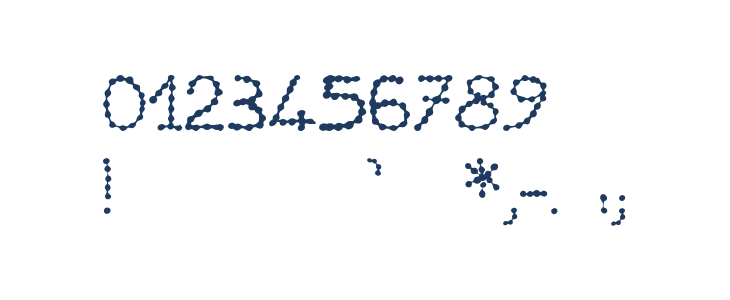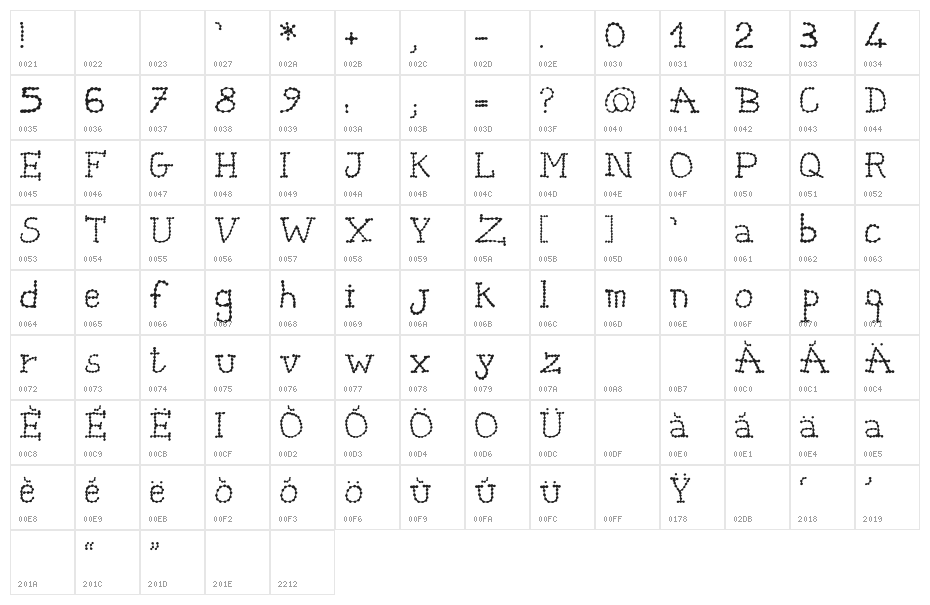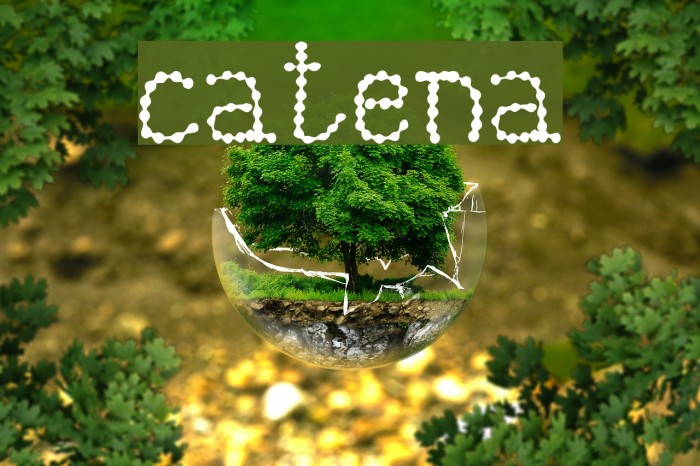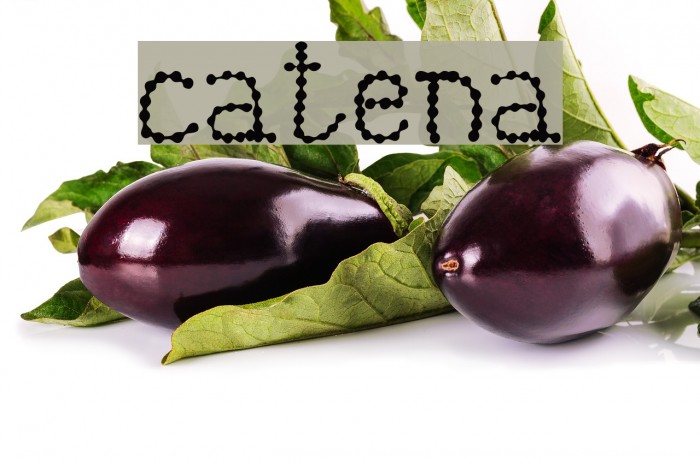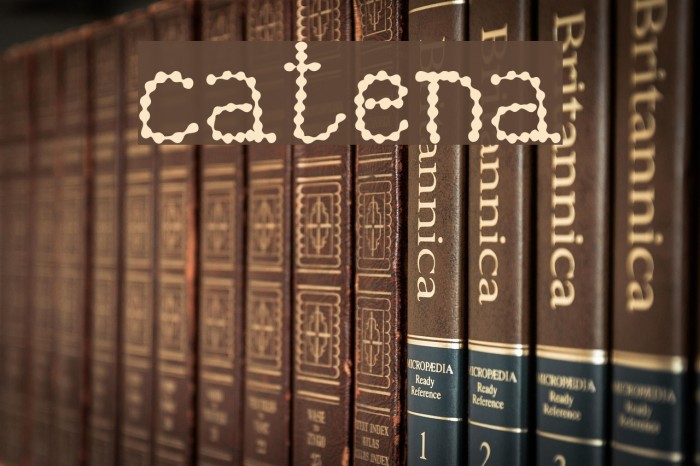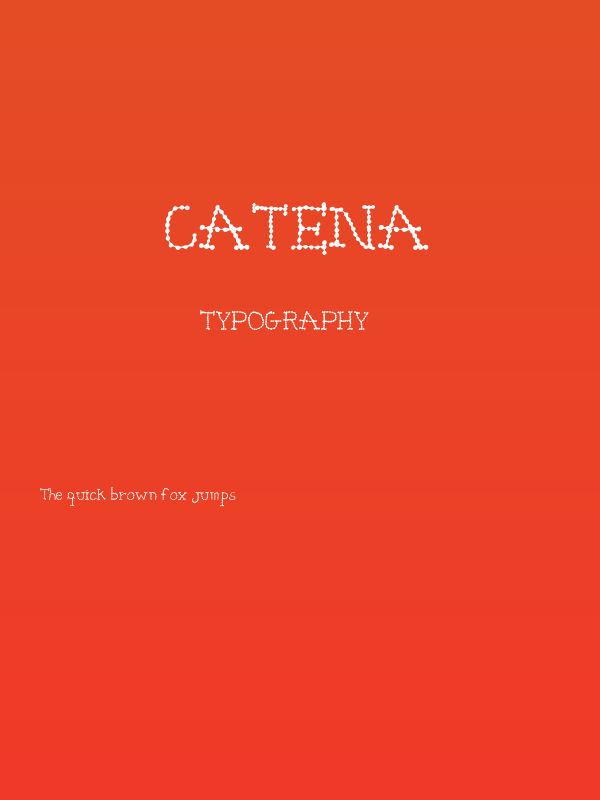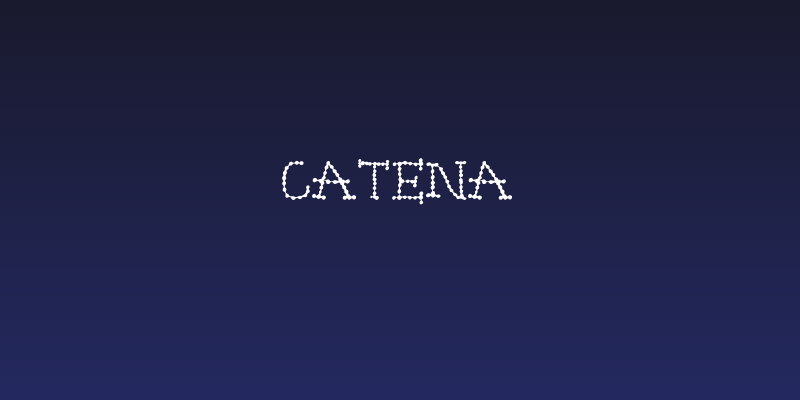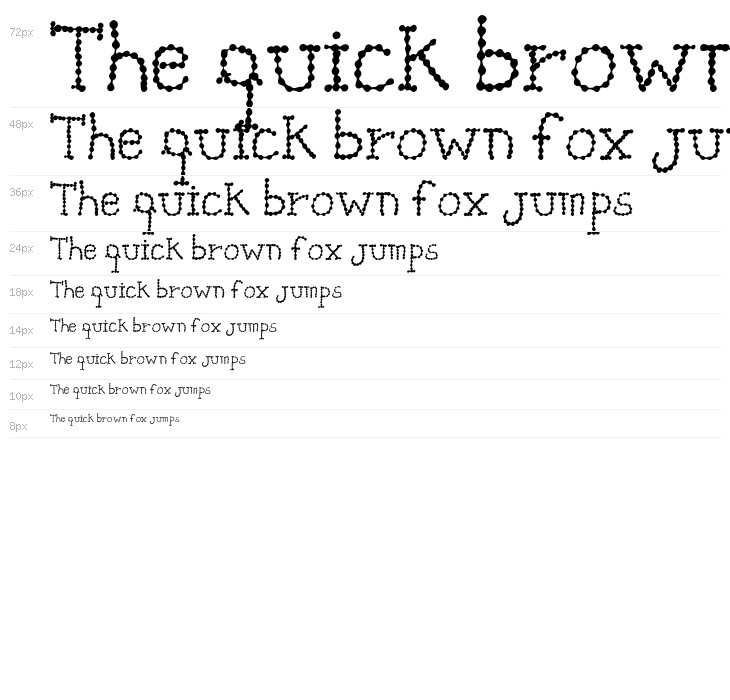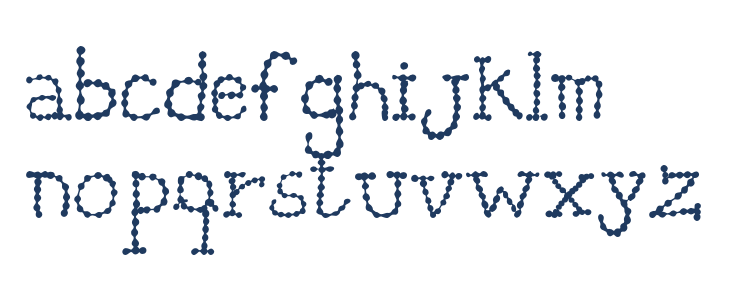
catena Font
This font features a unique design where each character is composed of small, circular dots connected in a way that forms the shape of traditional letters and numbers. The style is playful and decorative, giving a sense of whimsy and creativity. The uppercase and lowercase letters maintain consistent dot patterns, providing a cohesive look across the alphabet. Numbers and special characters follow the same dotted theme, ensuring uniformity. This font stands out due to its unconventional approach, making it suitable for projects that require a distinctive and eye-catching typeface.
Proposed ProjectsIdeal for children's books, creative posters, party invitations, and playful branding projects.